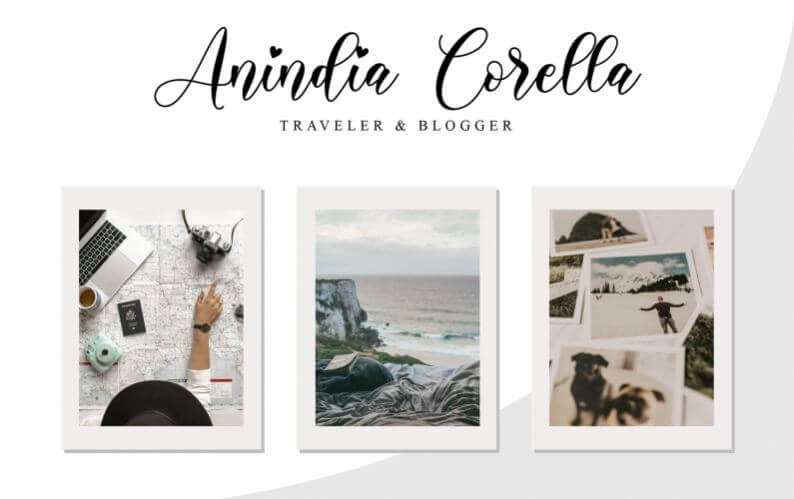
Alyanda Calligraphy Font
Alyanda Calligraphy Font is a wonderful script font with a stylish, and cutting-edge seem. It’ll add an individual touch to any design challenge! It is similar to october storm neither strictly geometric nor humanistic in construction.
Its varieties are designed in order that each and every character personality is rapidly and conveniently recognized.
Style Of Alyanda Calligraphy